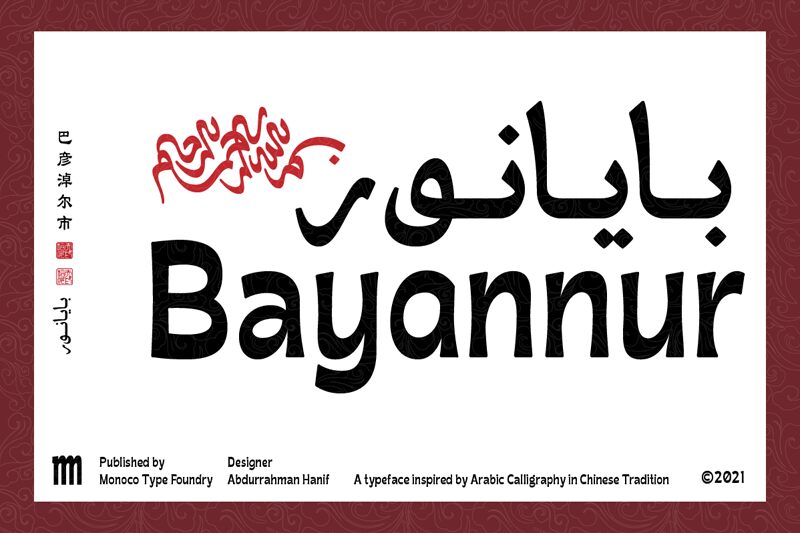
Bayannur font by Monoco Type Foundry is a typeface inspired by Arabic Calligraphy in Chinese Tradition. This font has extensive Latin script support, as well as Cyrillic and Arabic. The glyphs in this font specifically support Uyghur script typing. The designer, Abdurrahman Hanif, is currently studying Arabic Calligraphy in the Chinese tradition with Haji Noor Deen and trying to develop this font as his appreciation for this beautiful Art of Calligraphy.